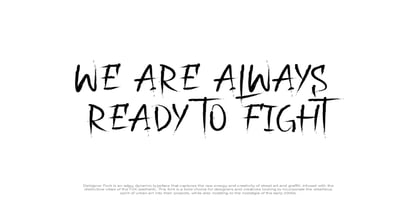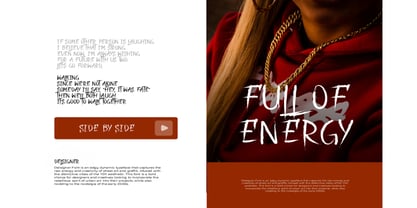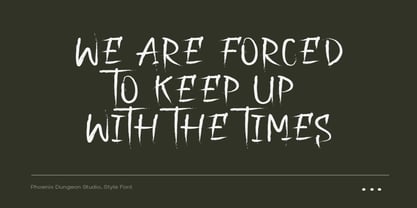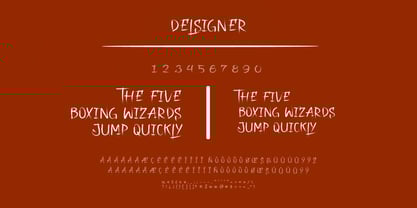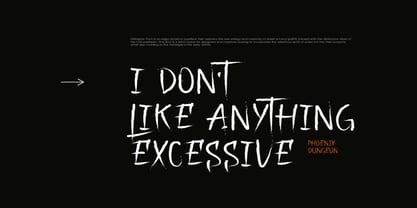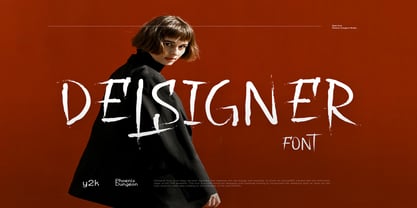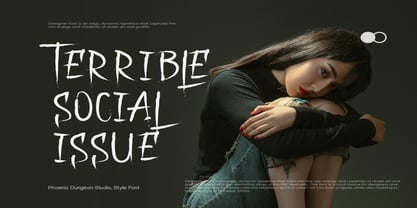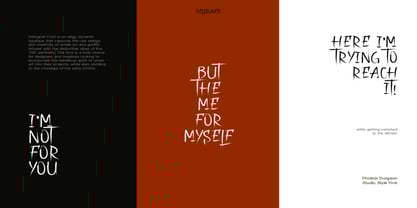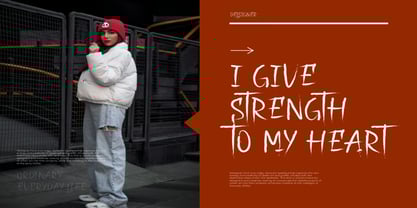
Delsigner
by Phoenix Group
Delsigner – Display splash brush handwriting is a bold and expressive typeface that captures the raw energy of brush strokes, ink splatters, and spontaneous handwriting. Designed for high-impact use in branding, advertising, and creative projects, Delsigner brings a sense of motion, emotion, and artistic authenticity to any visual composition. Whether used in music posters, social media graphics, or logo design, this font adds a layer of dynamic flair that enhances the overall design experience. Each character in Delsigner mimics the organic flow of real brushwork, complete with textured strokes, ink drips, and natural imperfections that give it a handcrafted feel.